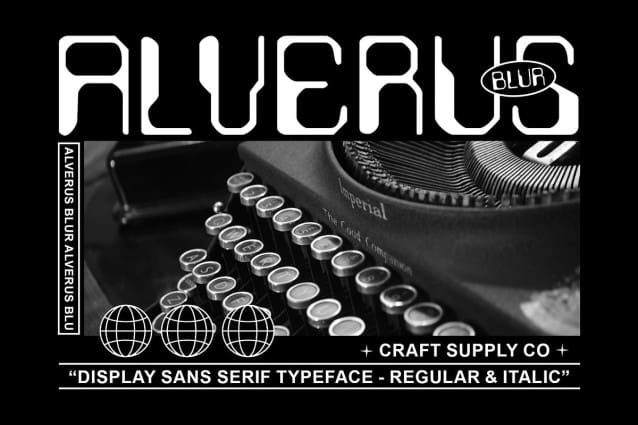
Alverus Blur Font
Alverus Blur Font: Blurring the Lines of Typography.  Geometric Display Design Alverus Blur boasts a striking geometric display design that catches the eye and demands attention. Its clean lines and precise shapes make it a standout choice for any display project.
Dynamic Blur Effect With its innovative blur effect, This font adds a sense of movement and depth to each character. The blurred edges create a dynamic and modern look that sets this font apart from the rest.
Ideal for Display Purposes Designed specifically for display purposes, This font excels in making a bold statement. Whether used in headlines, banners, or logos, it ensures that your message stands out with its unique visual appeal.
Versatile Application Despite its bold design, This font is surprisingly versatile. It can be used in a variety of design projects, including posters, advertisements, and website headers, to add a touch of contemporary style.
Dynamic Geometry with a Modern Twist This font combines geometric shapes with a dynamic blur effect to create a font that is both visually striking and modern. Its versatility and eye-catching design make it a valuable asset for designers looking to make a bold statement in their projects.